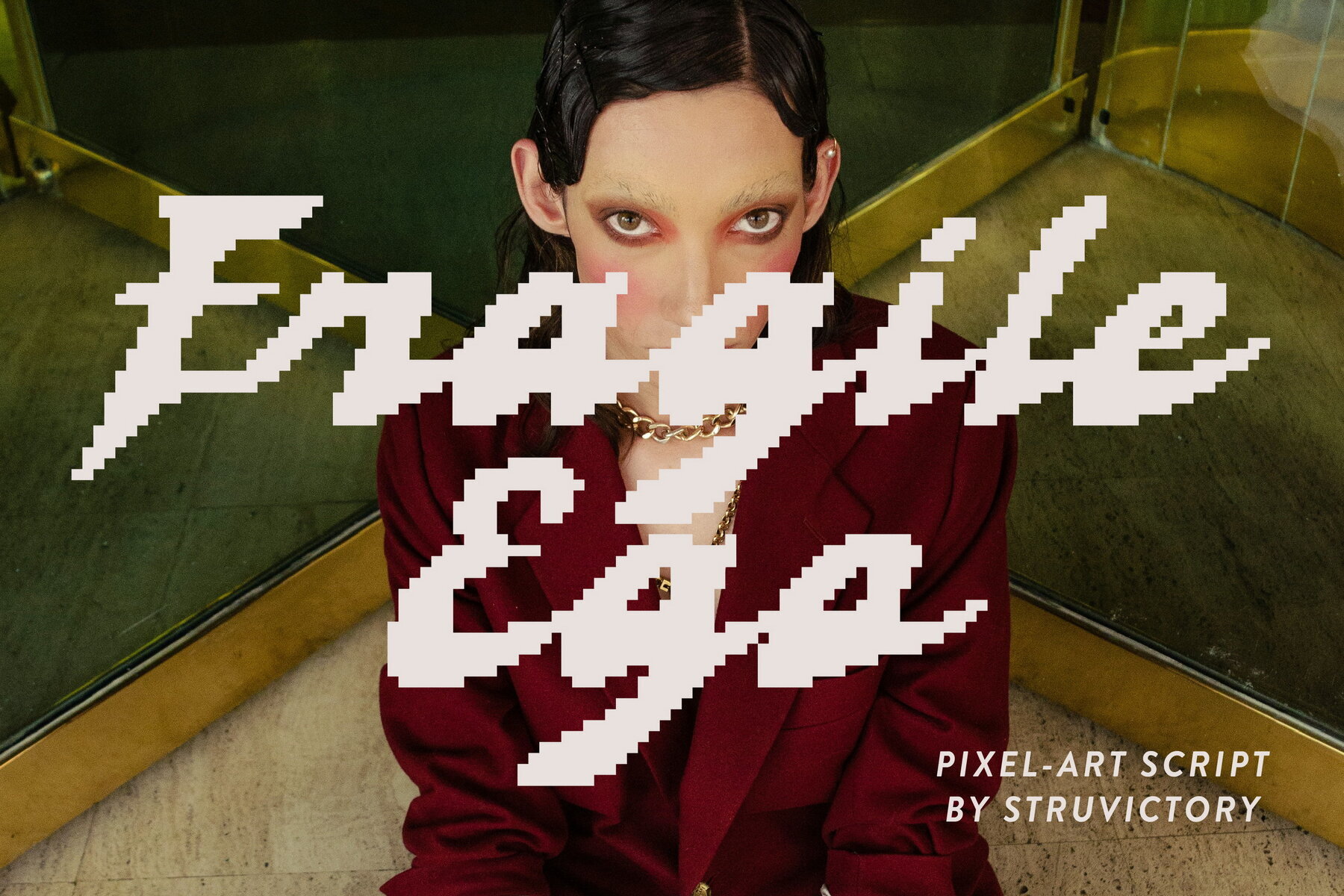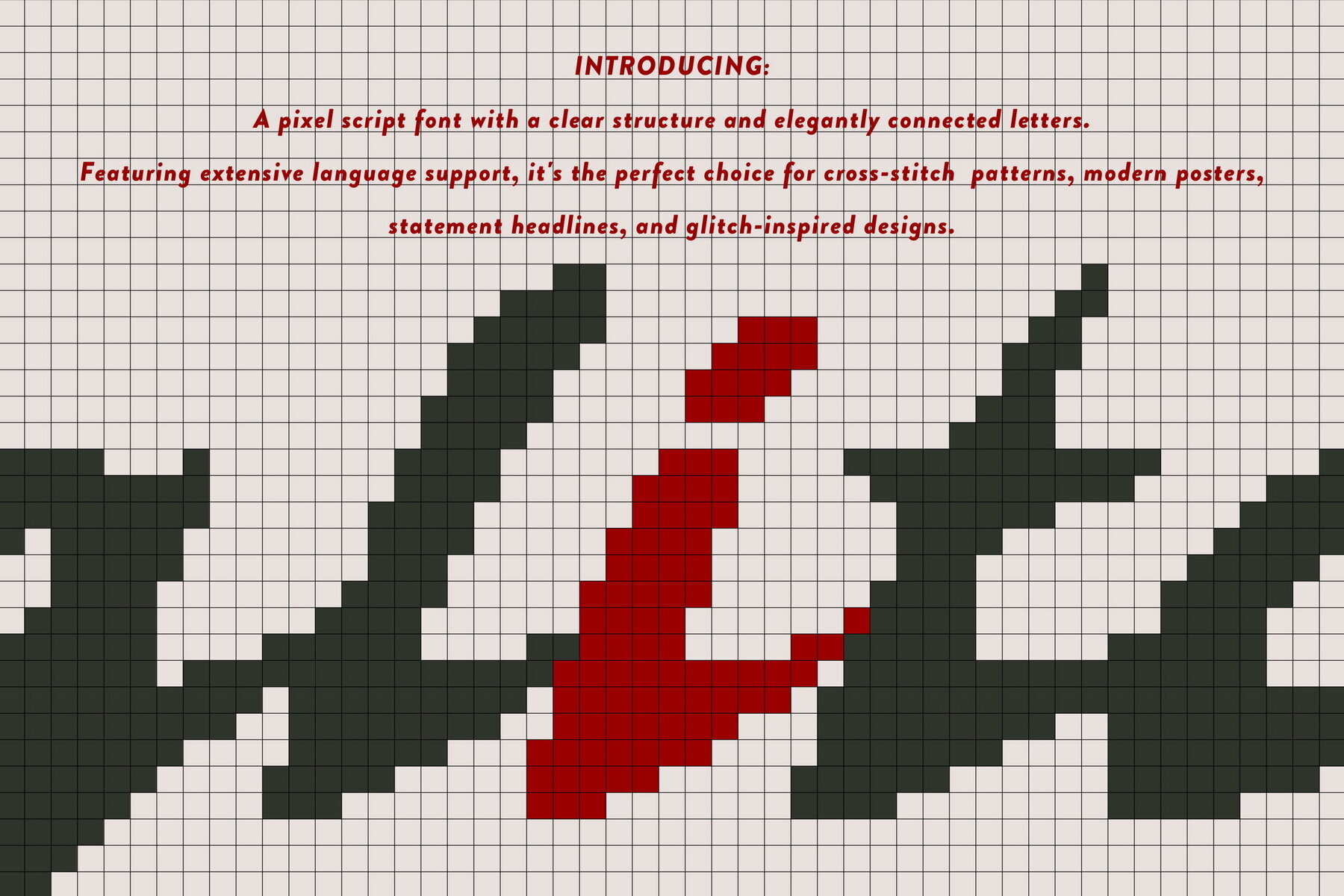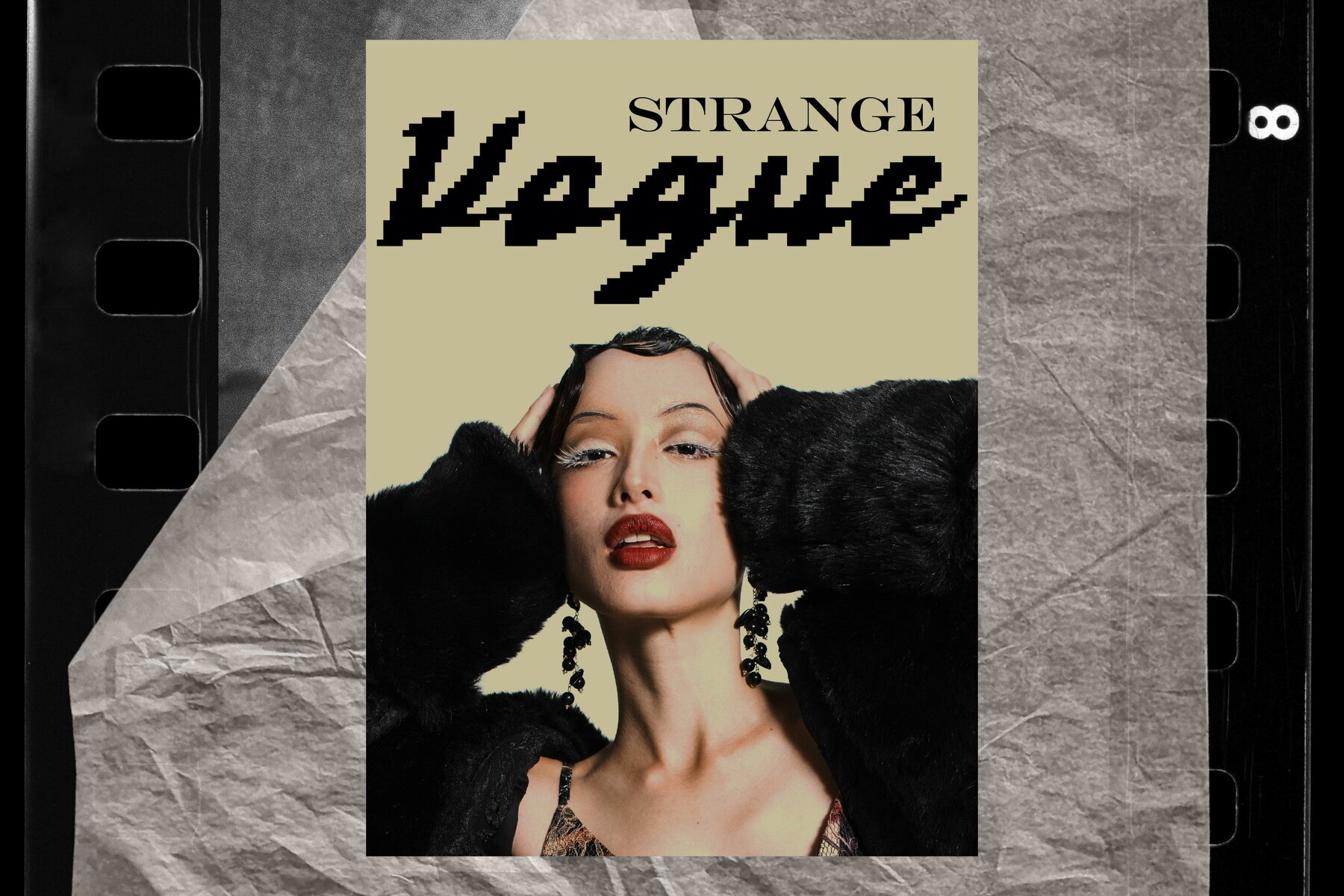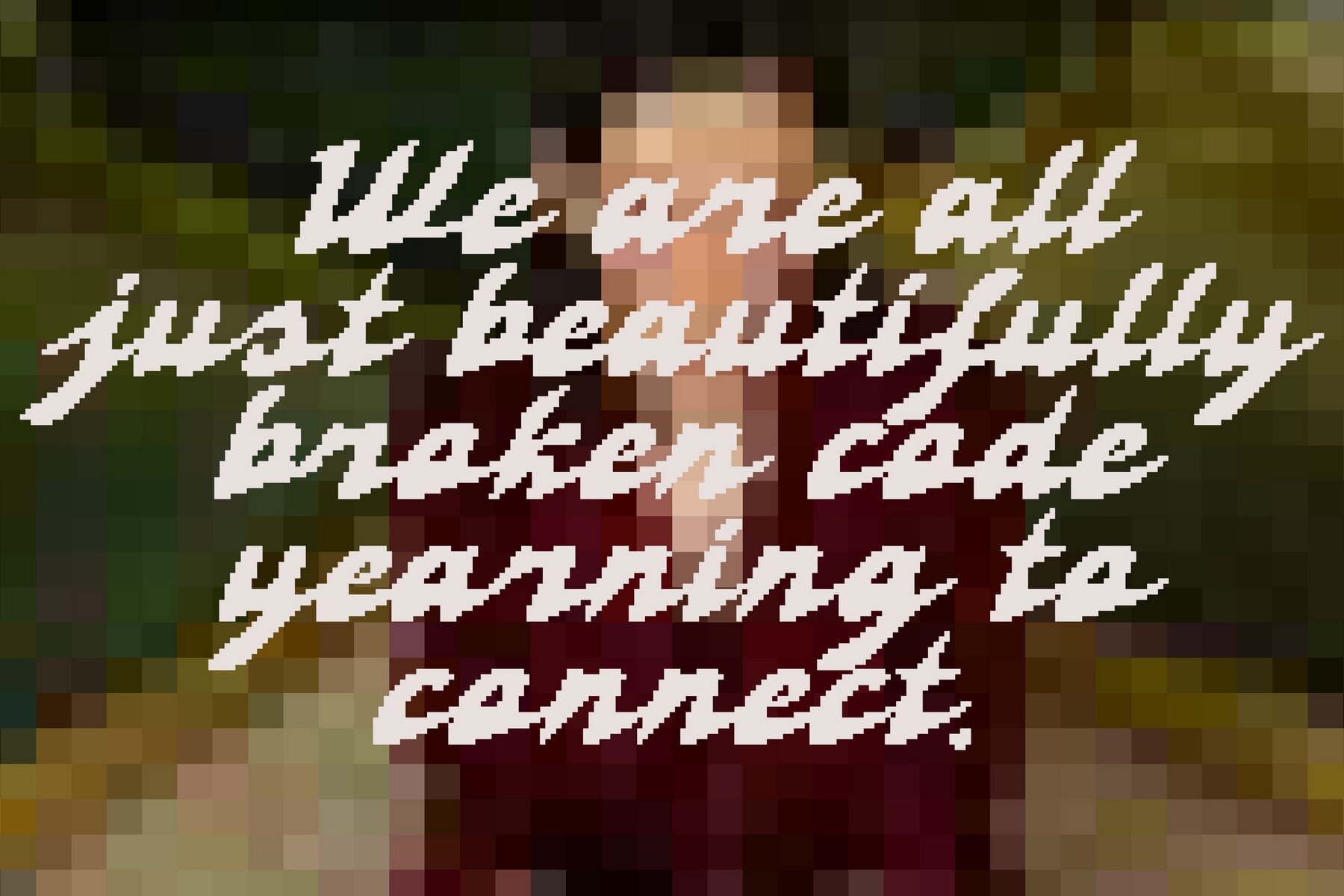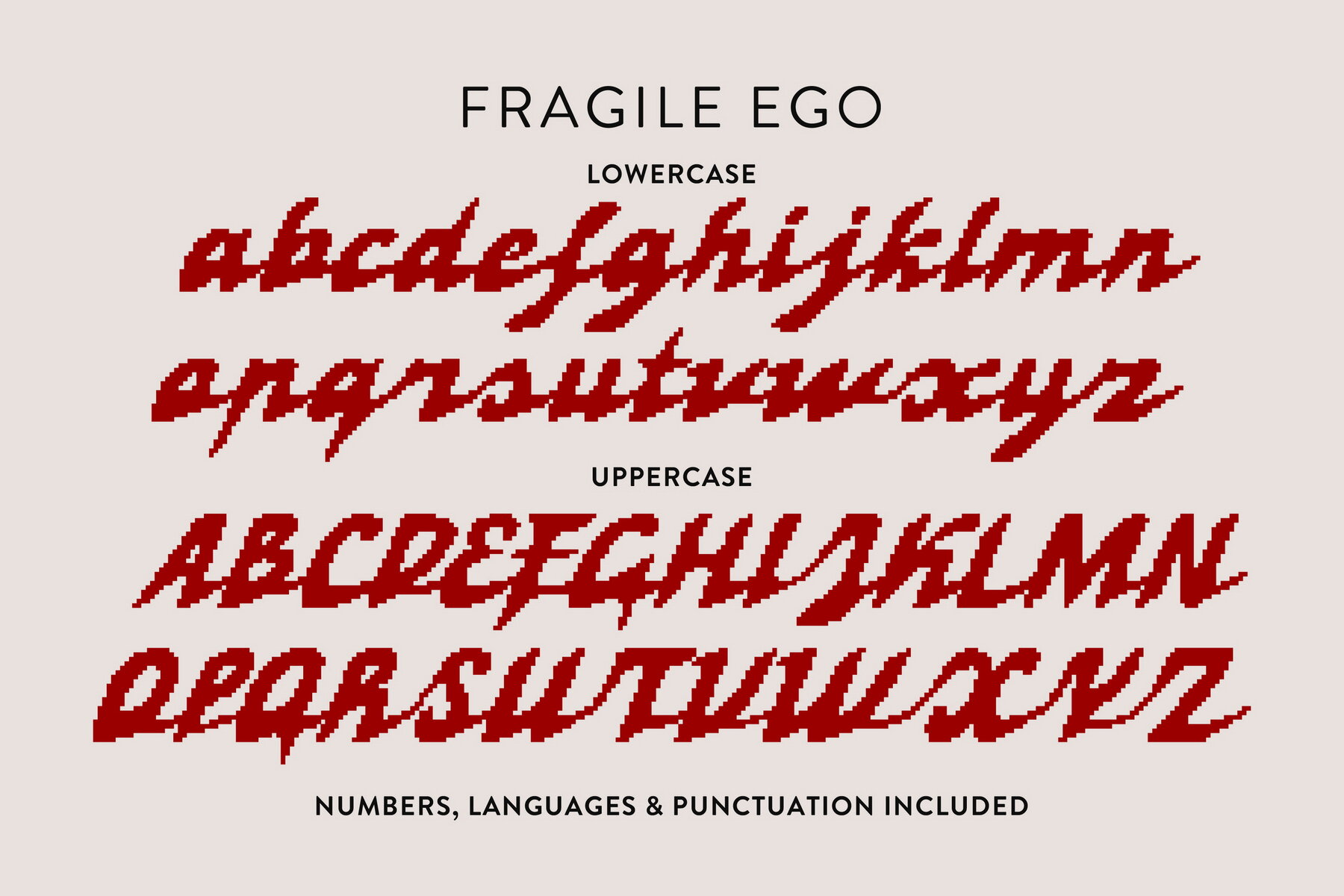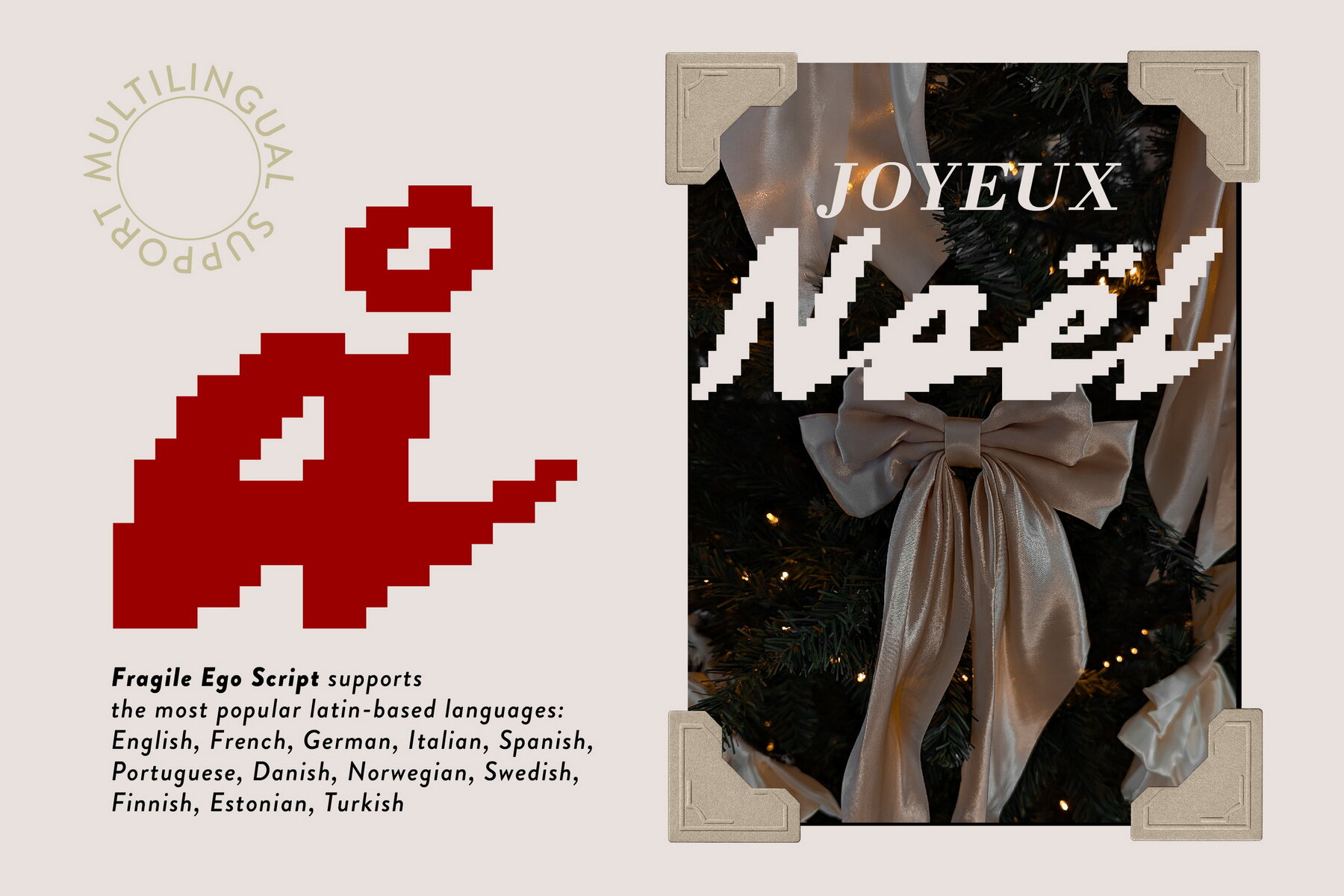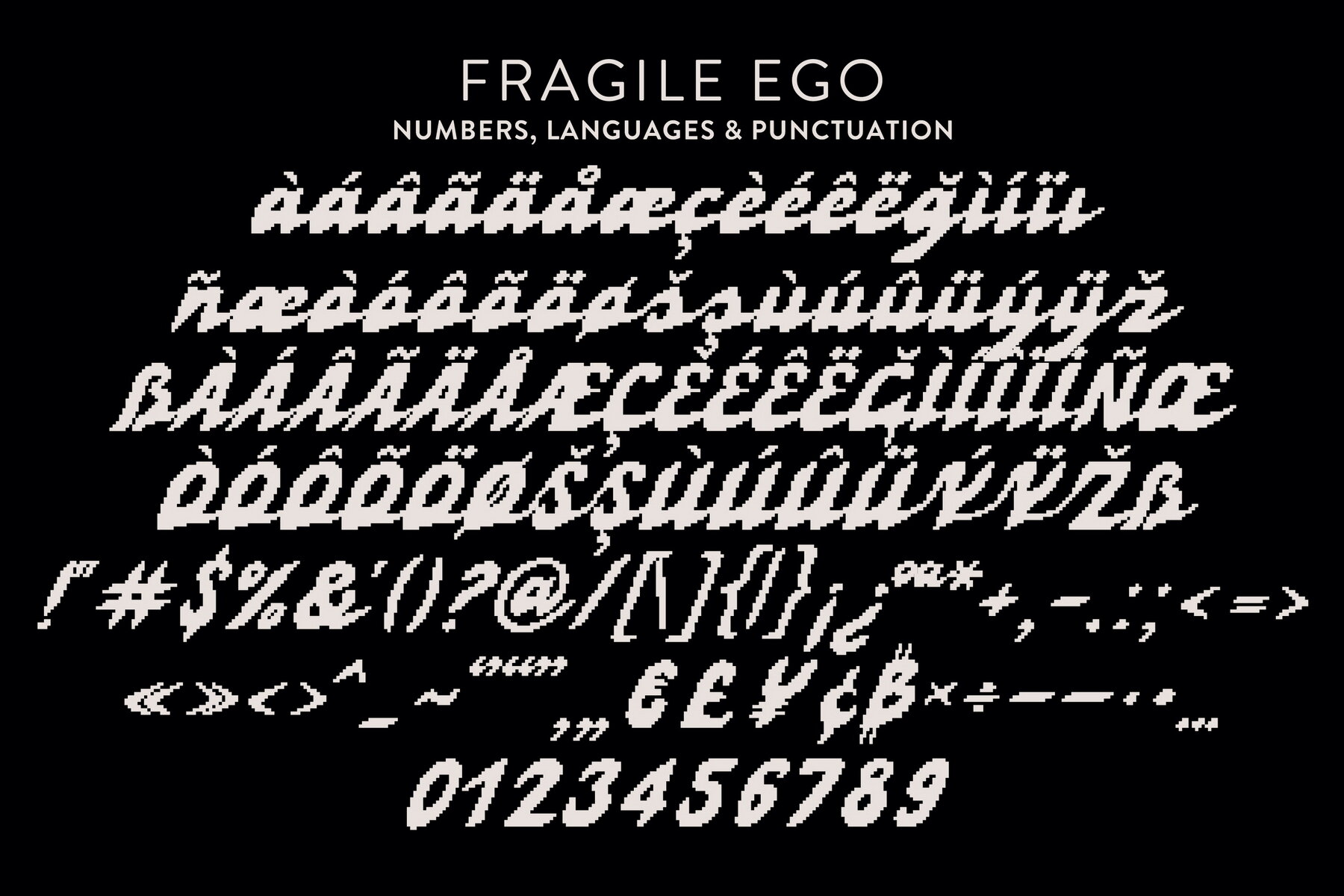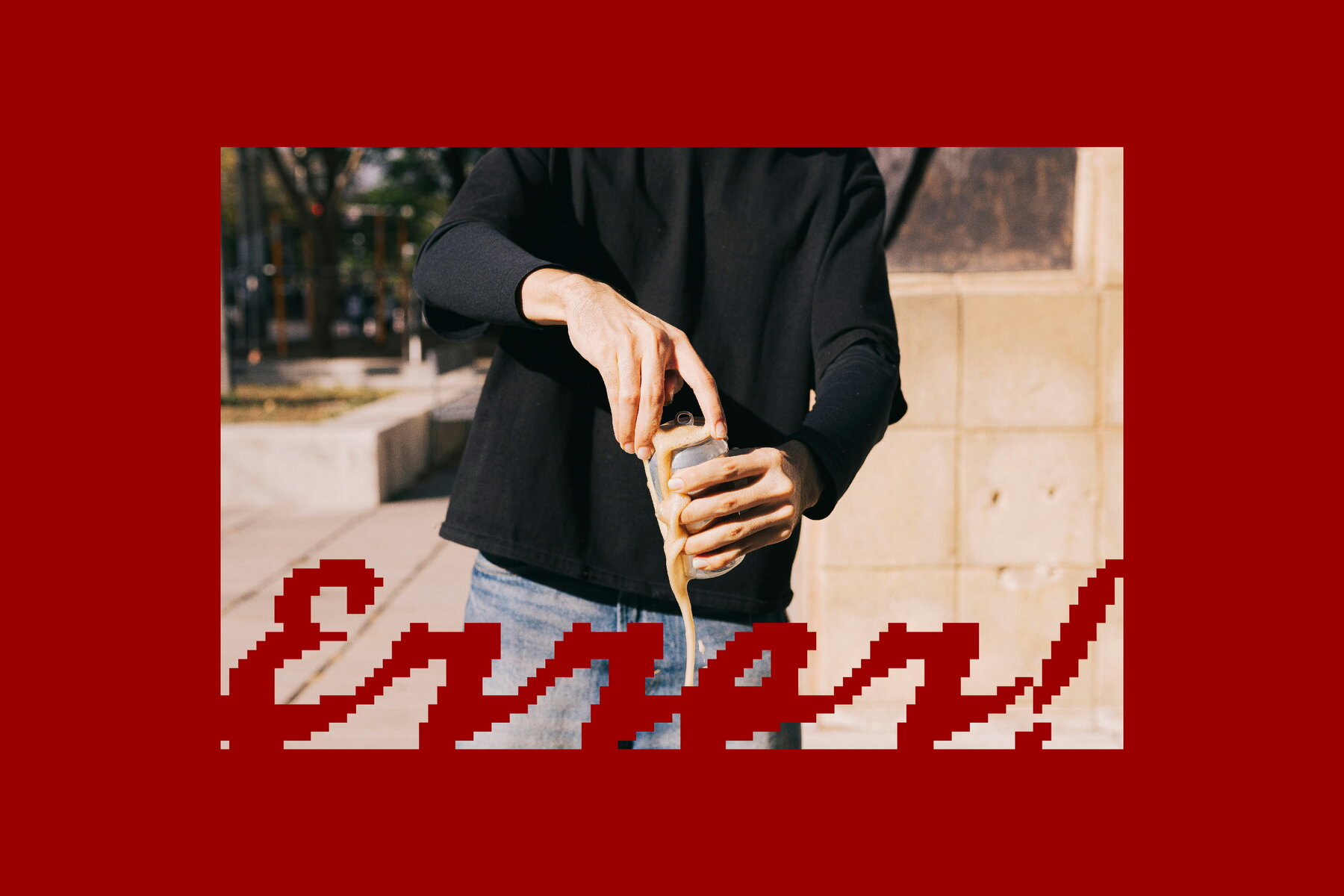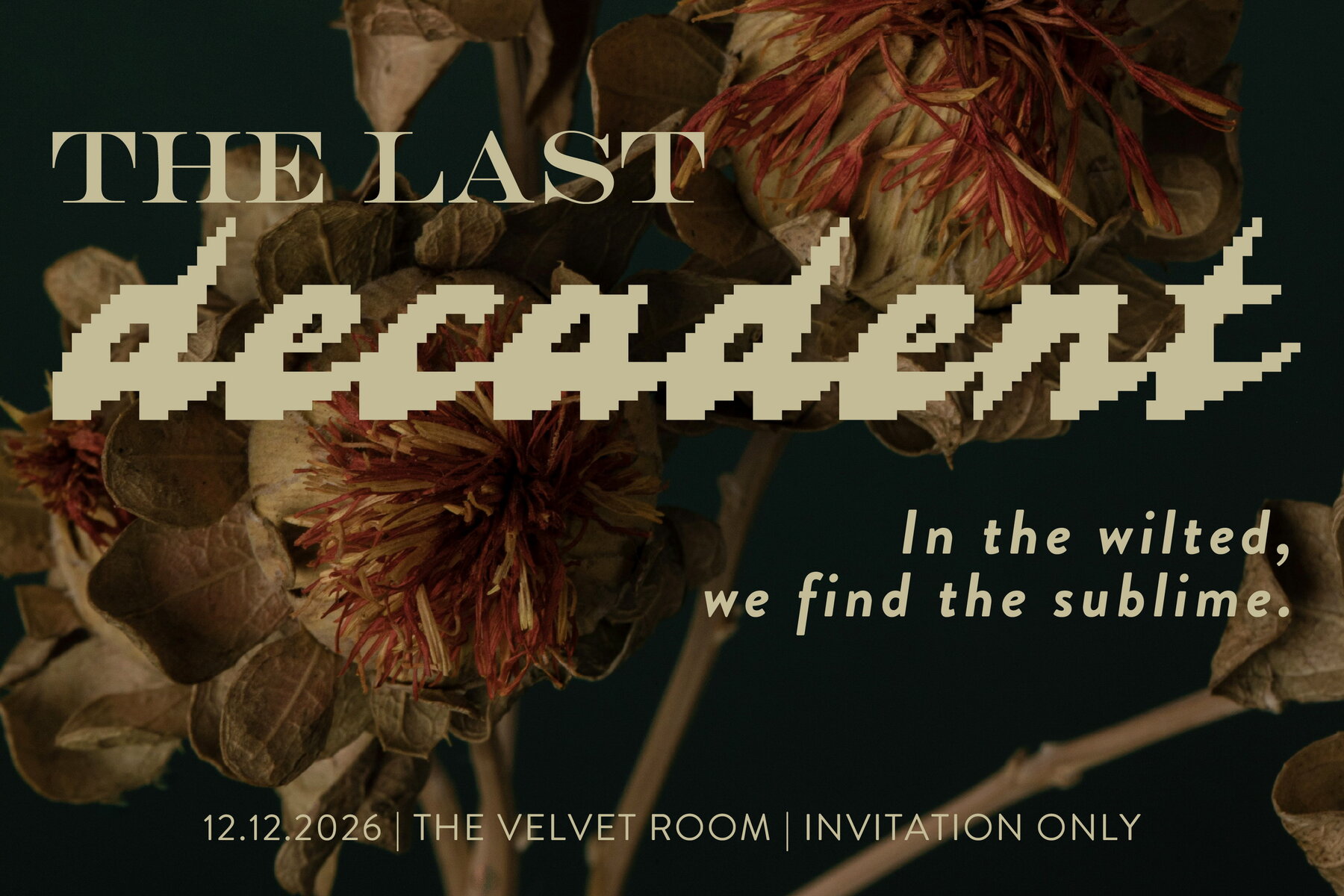
Fragile Ego Font
Fragile Ego Script
Fragile Ego draws from classic 8-bit inspiration, merging pixelated structure with fluid, connected letterforms. This pixel-art script font offers a vivid exploration of digital imperfection and subtle emotion, standing out for projects that seek an unconventional blend of nostalgia and modernity. The glitched connections evoke a digital age sensibility, yet each curve hints at careful, human design sensibility—ideal for graphic designers who appreciate the interplay of form, memory, and innovation. This font is well-suited for design projects that call for distinct visual identity. Create posters with striking impact, album art that conveys story at a glance, or branding elements that ask for a closer look. Fragile Ego's pixel character also lends itself to creative uses, including modern cross-stitch patterns and holiday motifs that veer away from the ordinary.Fragile Ego: Pixel-Art Script Balancing Digital and Human Elements